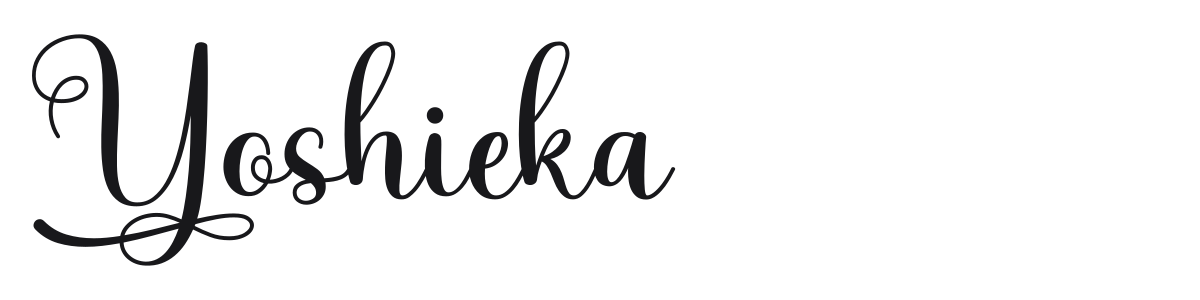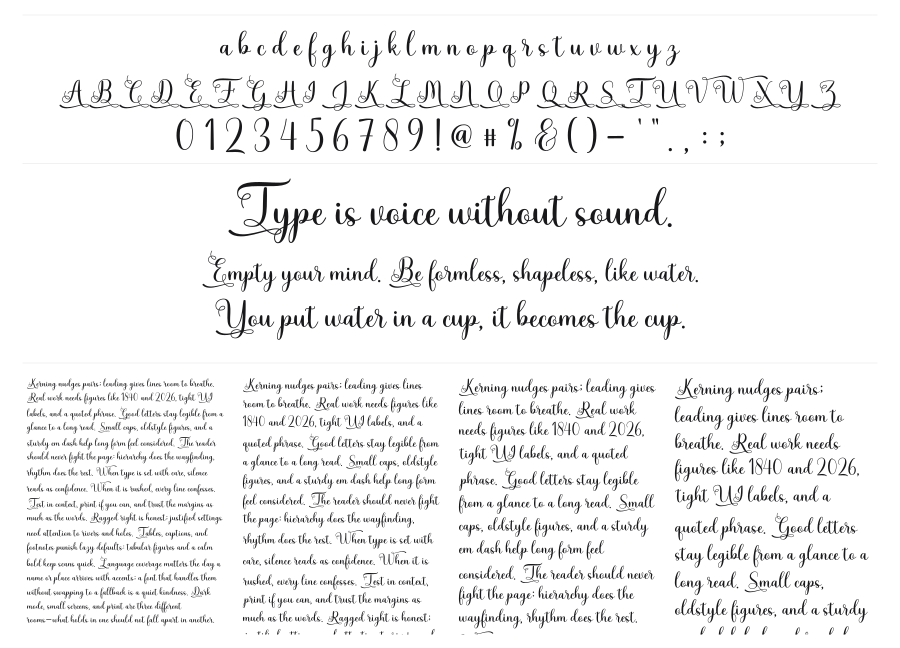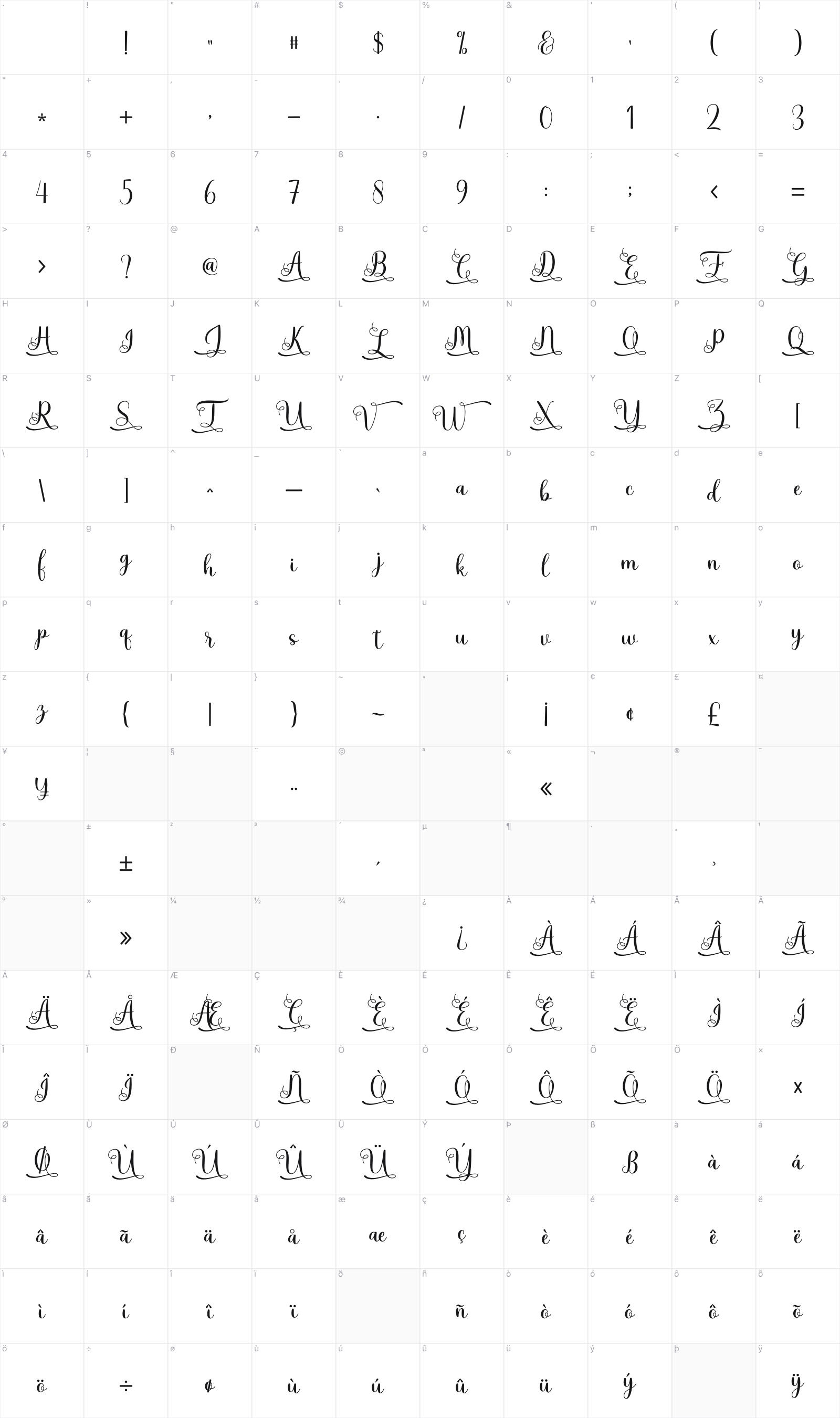
Yoshieka
Yoshieka is a casual connected script with a smooth, calligraphic flow and generous looping strokes. The moderate stroke contrast and natural bounce give it a handcrafted warmth that reads well at headline and display sizes. It suits wedding stationery, lifestyle branding, and any project that needs a friendly, elegant handwritten presence.